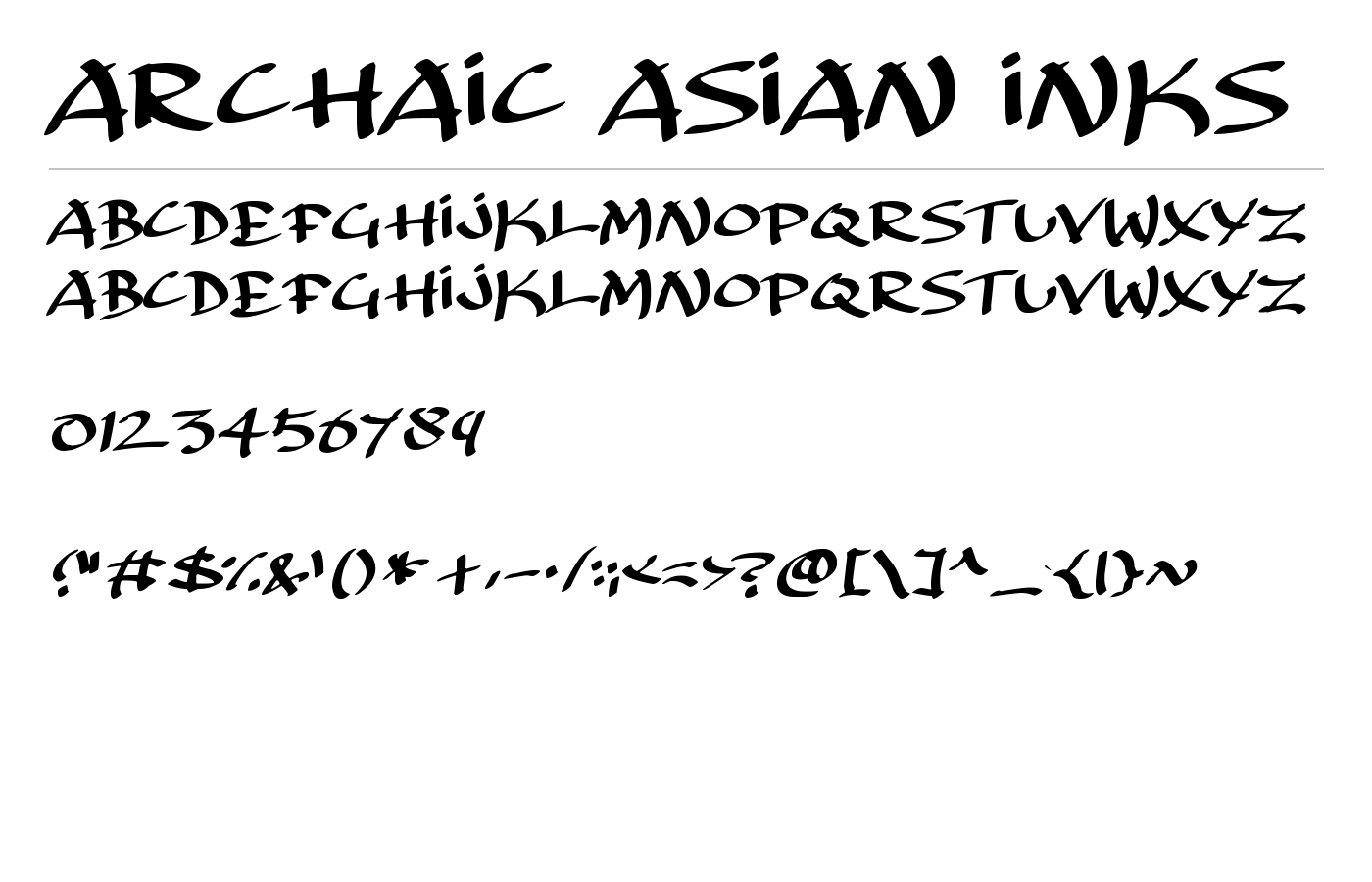
Archaic Asian Inks is a bold, calligraphic display font with a dynamic brushstroke style that evokes traditional Asian ink painting. Its sharp, expressive strokes and irregular shapes give it an artistic, handcrafted feel, making it ideal for projects that want to convey cultural richness, creativity, or an exotic, vintage vibe. This font works exceptionally well in logos, posters, and headlines where a strong, unique character is needed to capture attention.
Archaic Asian Inks Font
About Archaic Asian Inks Font